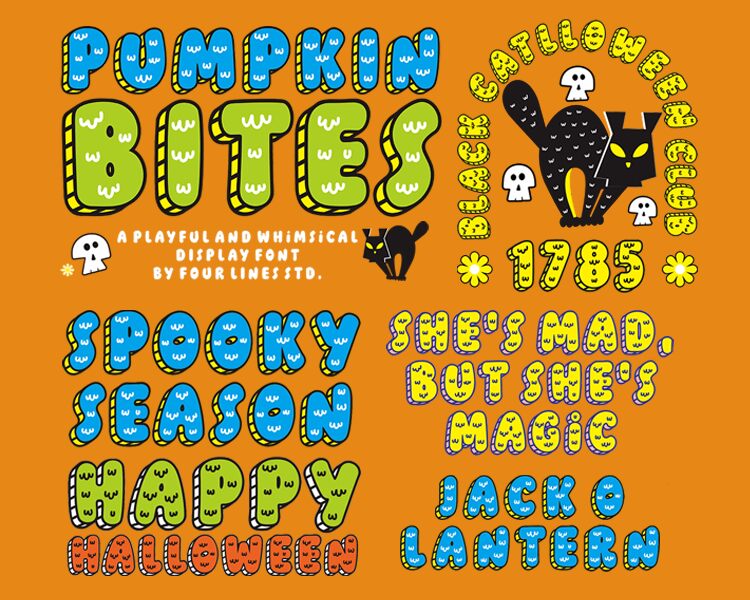
Pumpkin Bites Layer font by Four Lines is a cheerful display font with cartoonish tones, layered with inner filling patterns. It displays retro vibes and organic appearances suitable for playful applications thanks to its rounded shapes and bold weight. It is a thinner, lighter in weight version of the original Pumpkin Bites font of which it completes the family.
This free discount promo display font is more convenient for creating logos, menu designs, food packages, branding identity projects, social media content posts, cards invitations or envelopes (such as Christmas), gaming and kids’ applications interfaces (websites/apps), and shops signs.